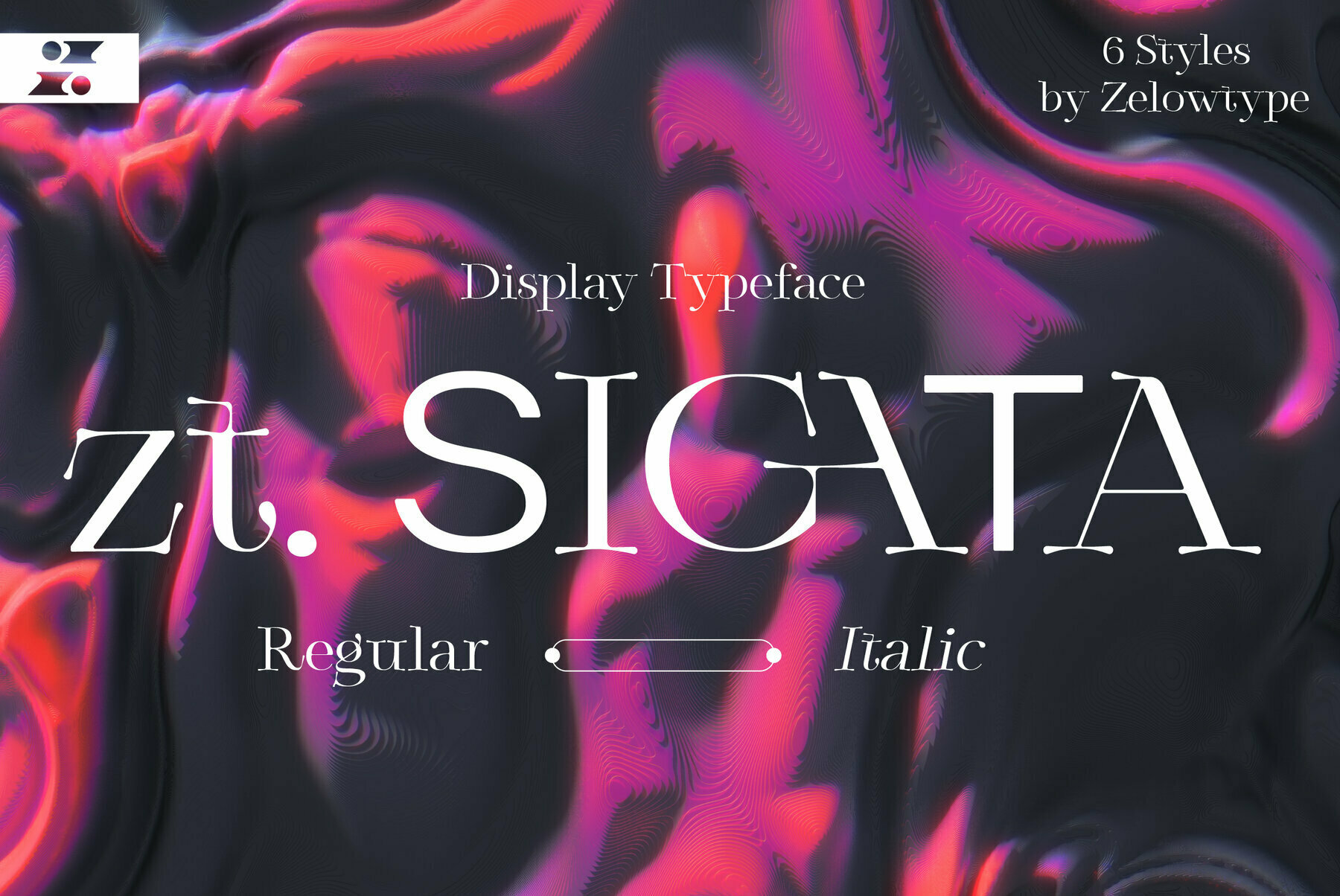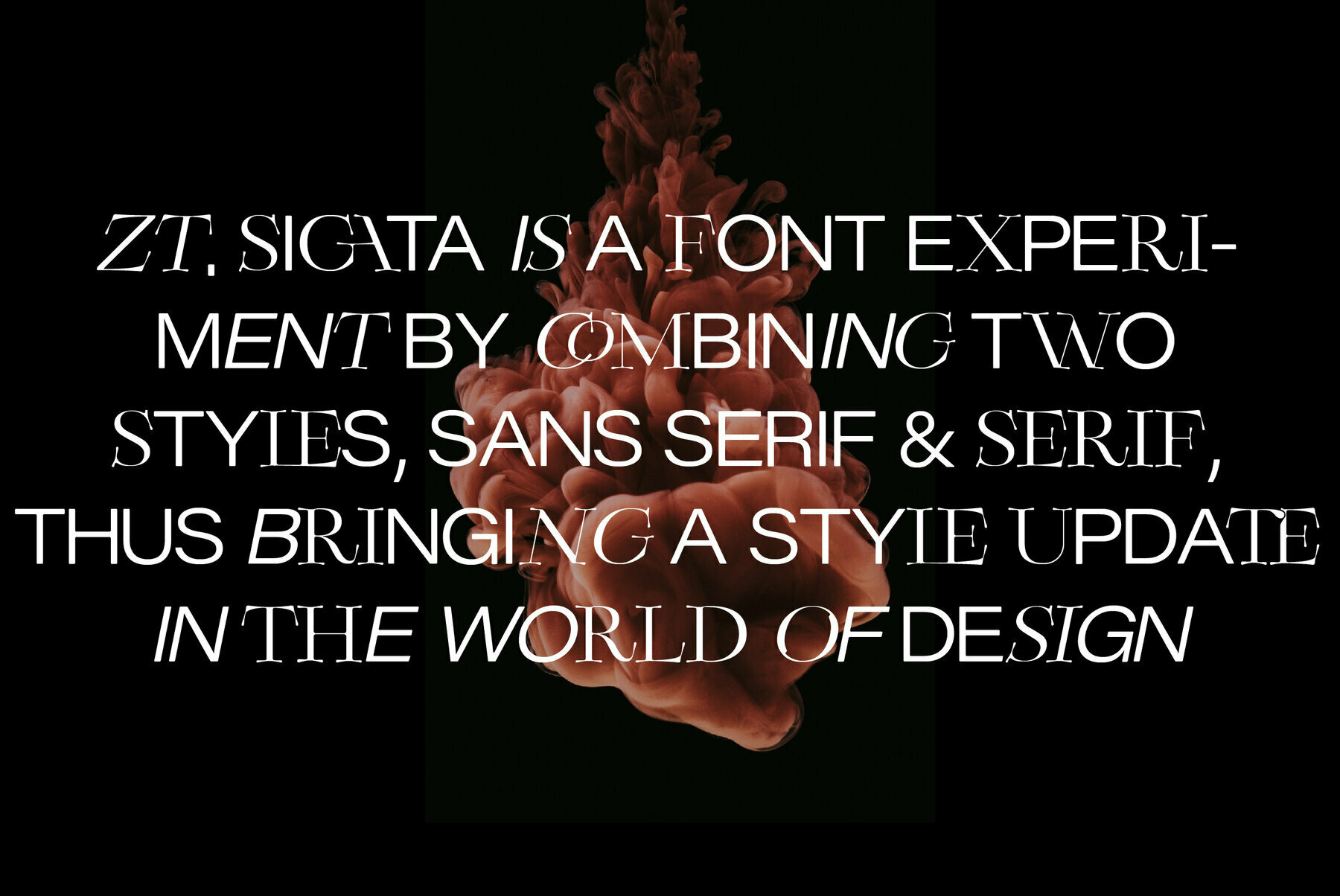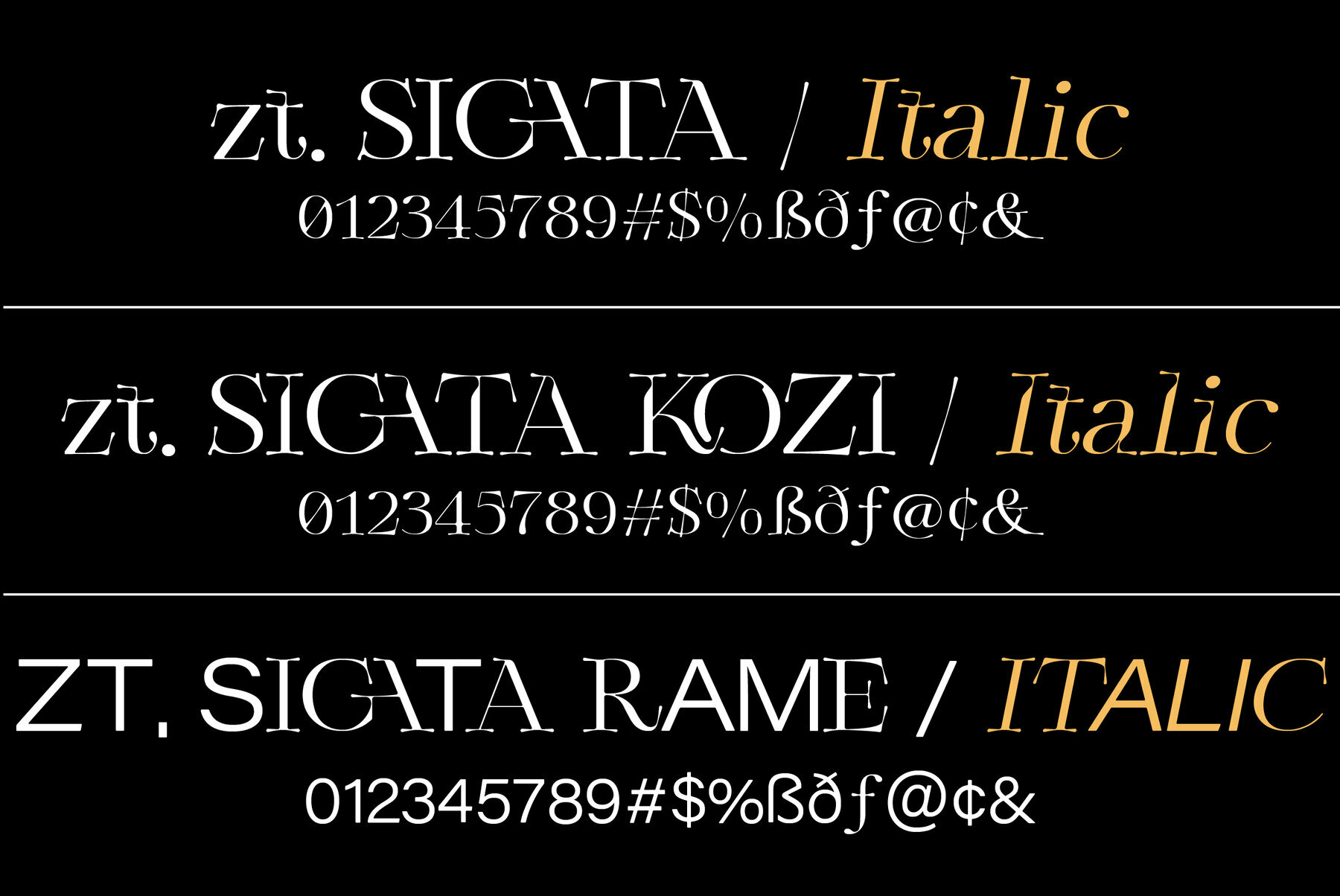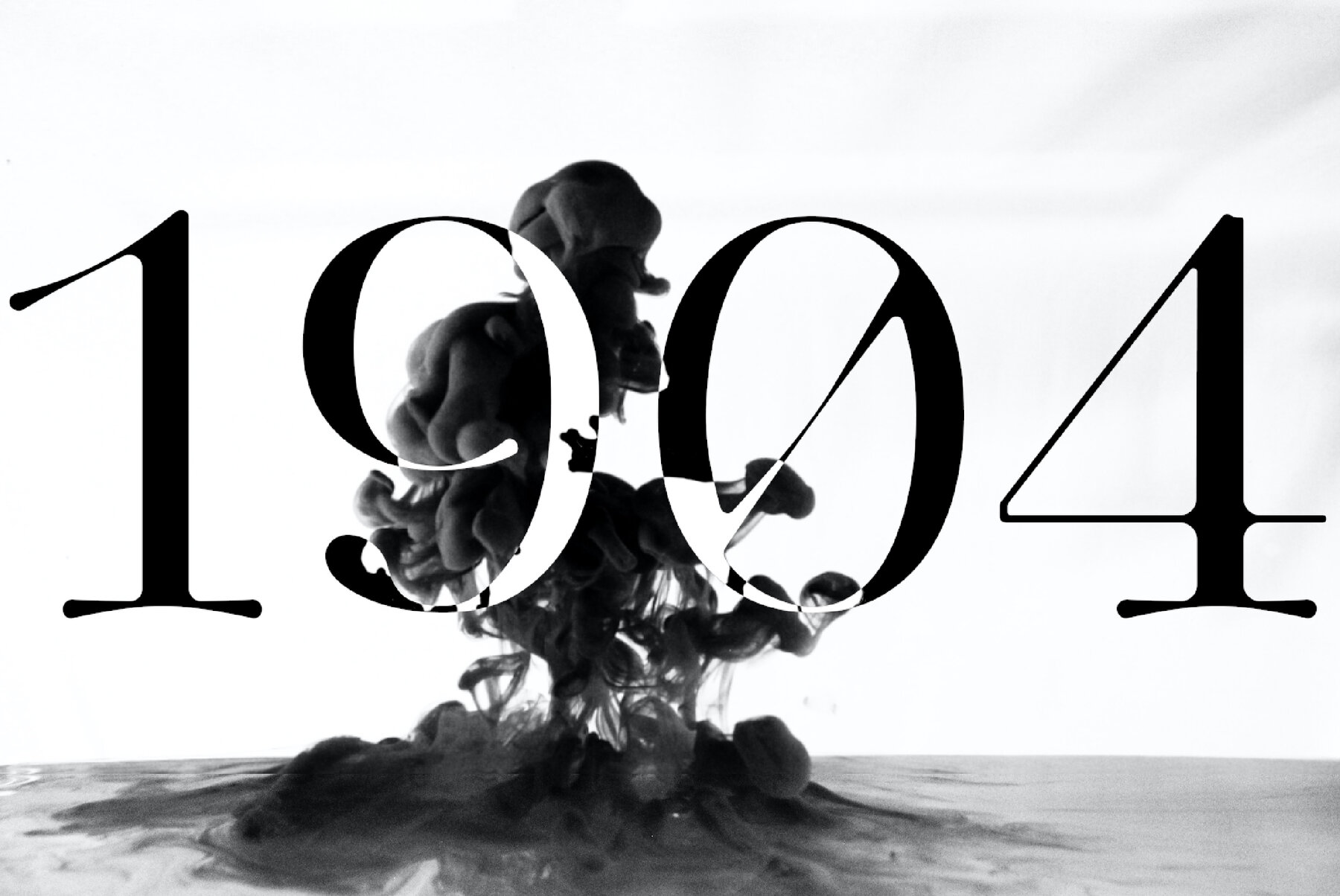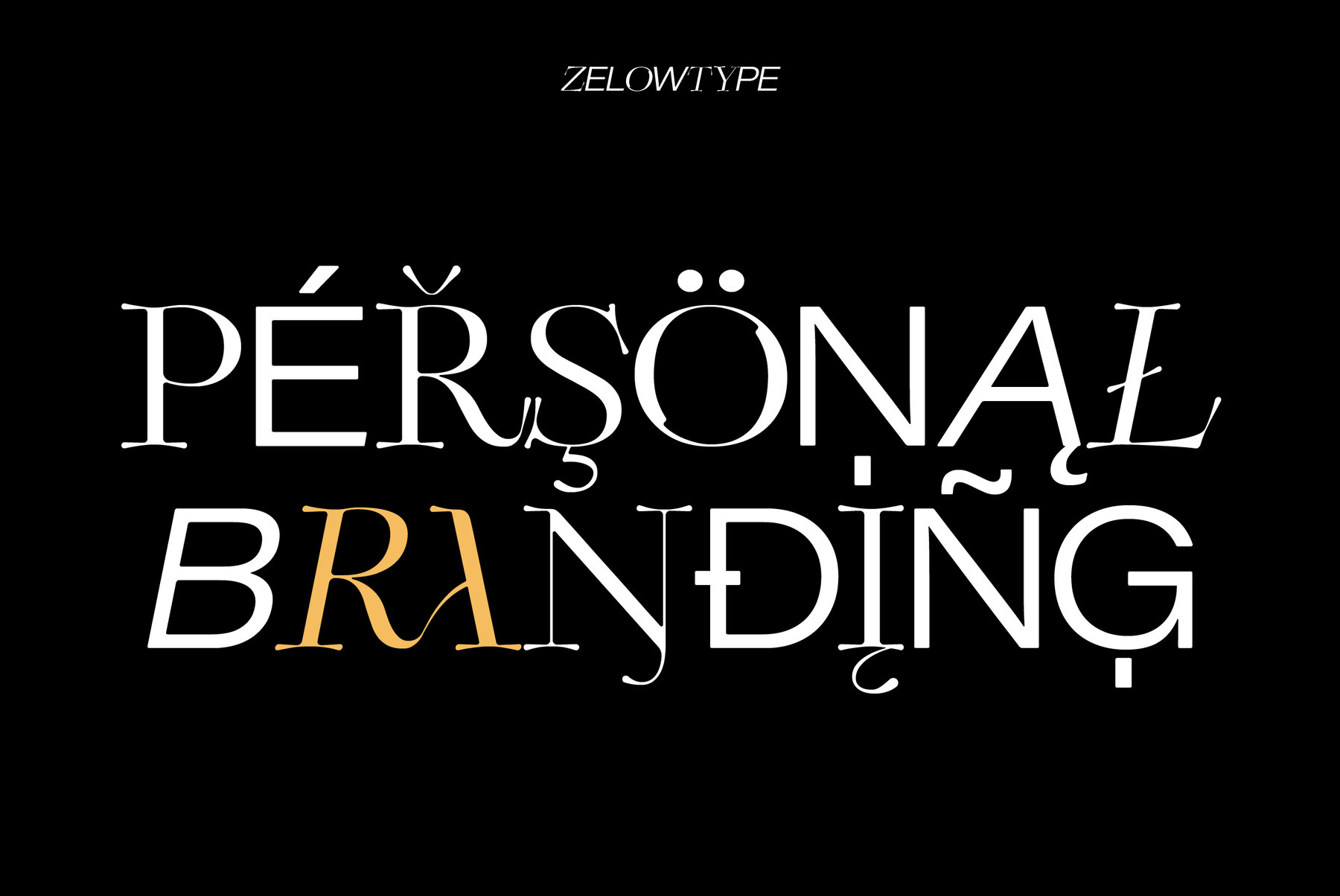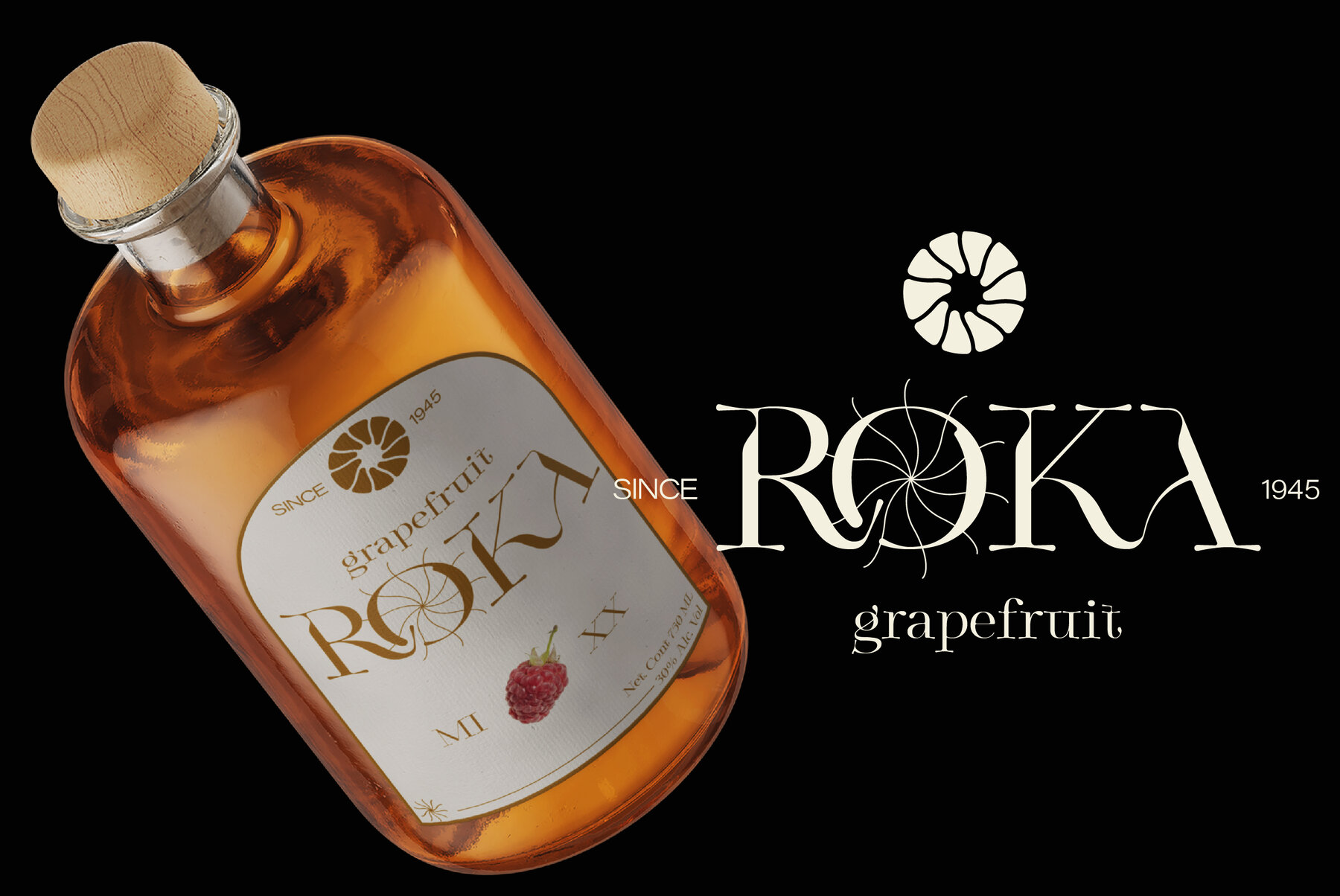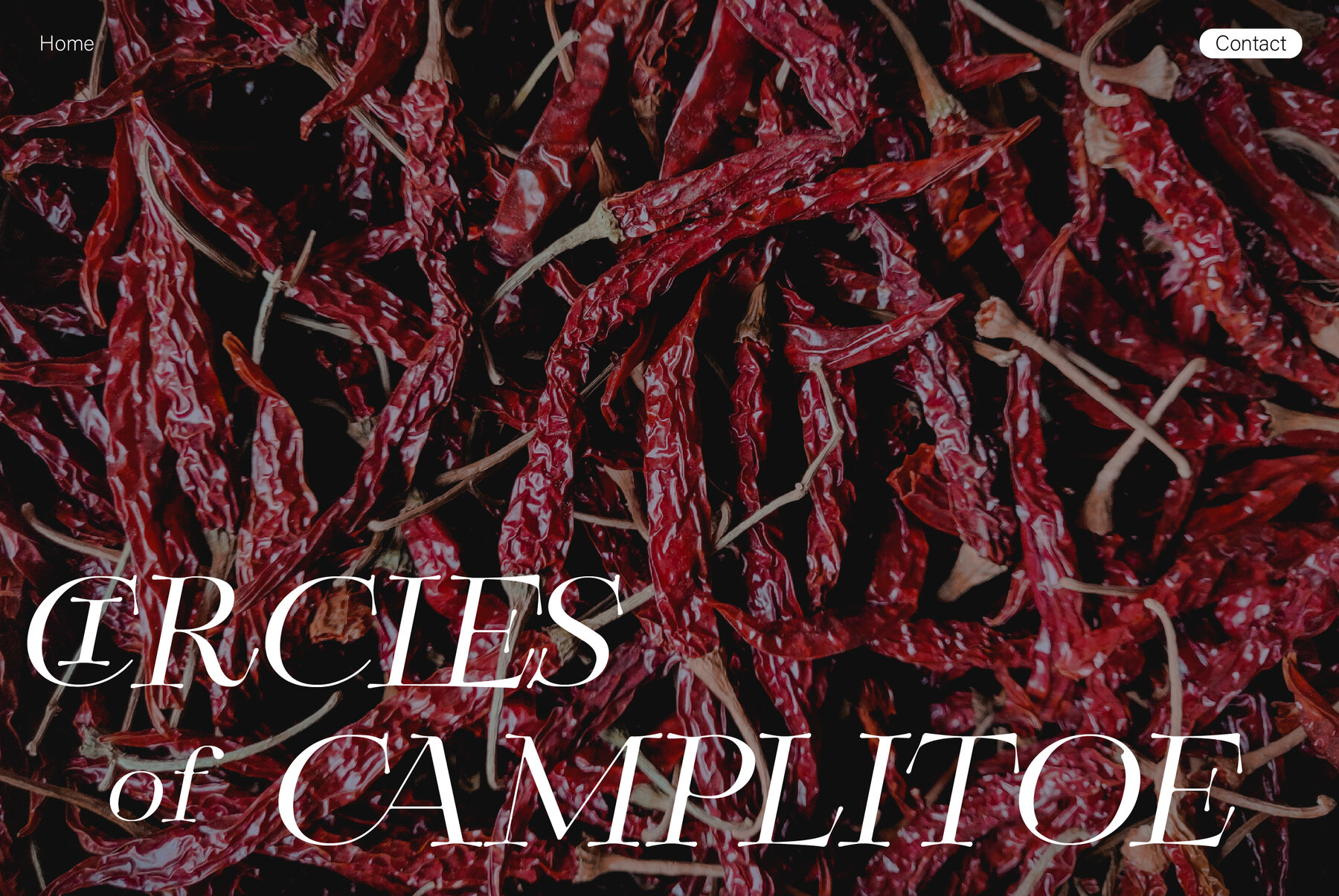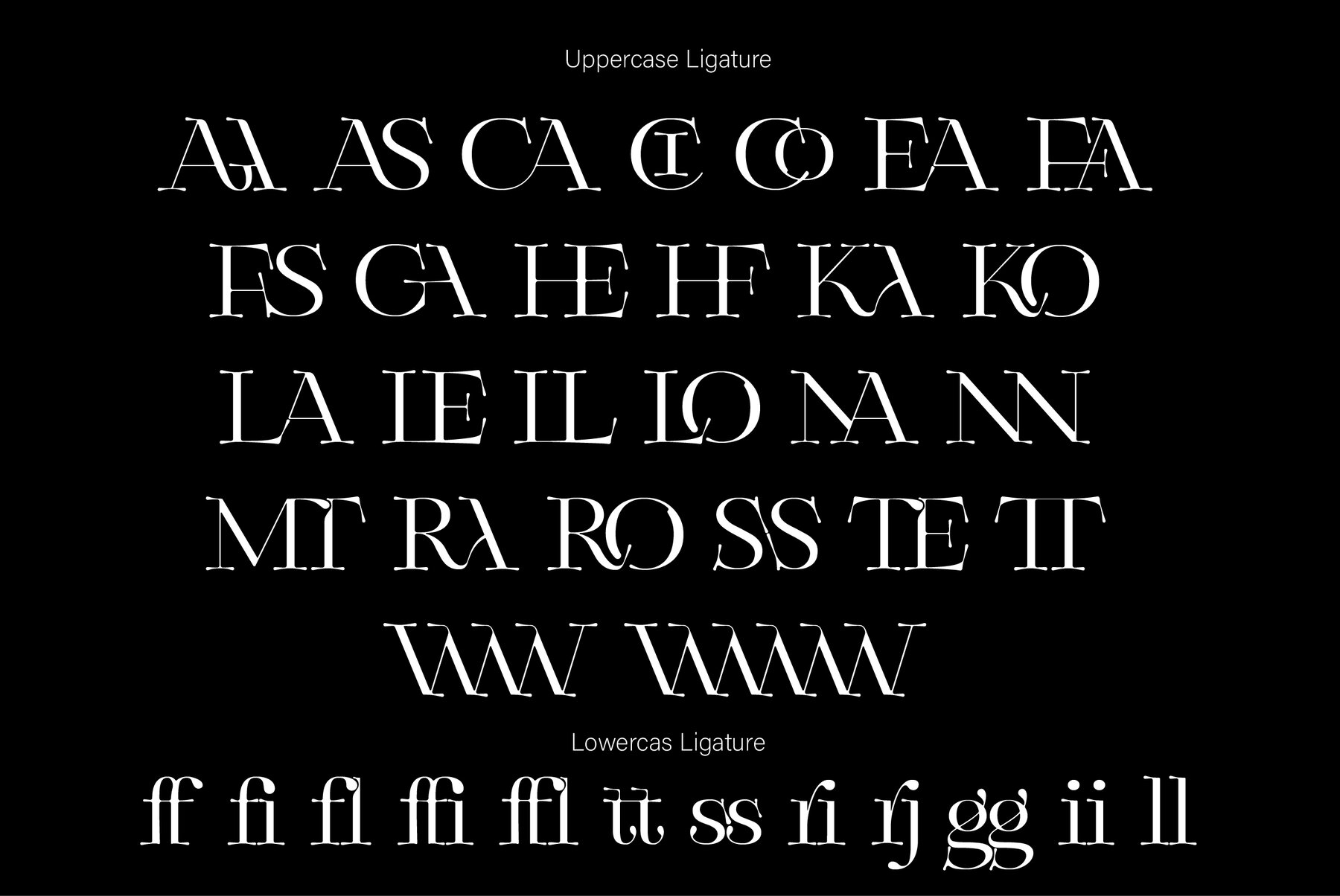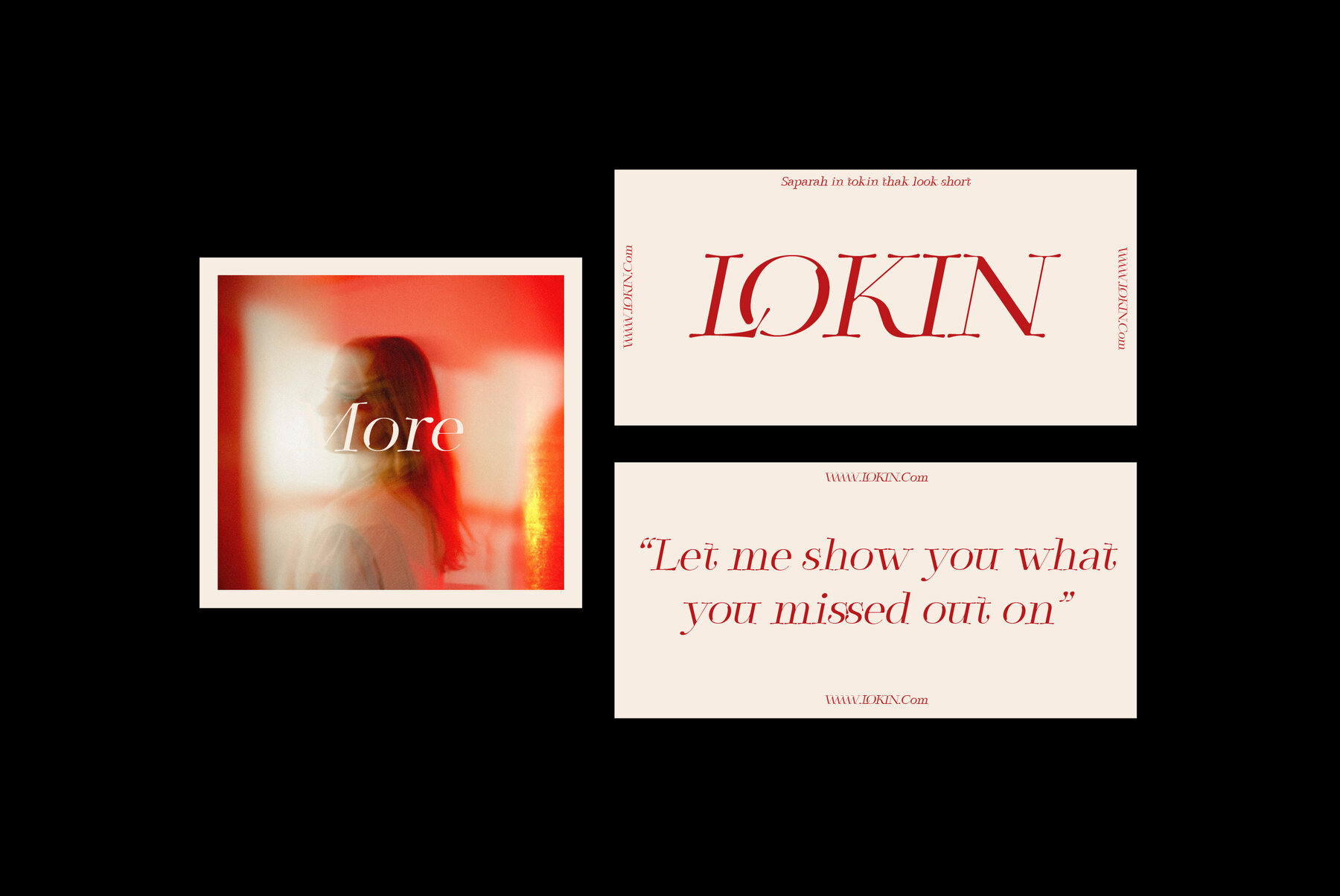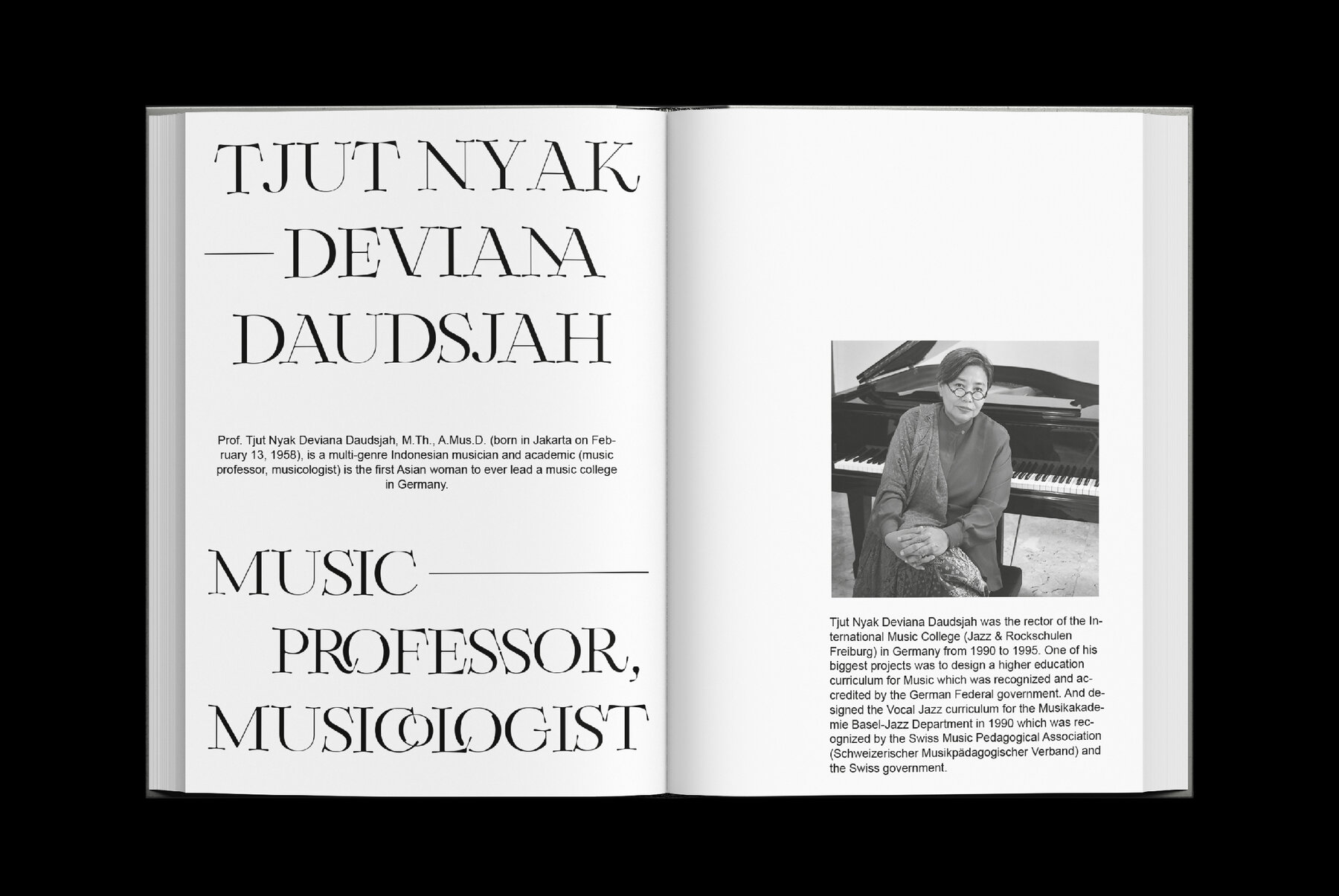
Zt Sigata 1
Zt. Sigata is an experiment where combining the two font styles into one, namely sans serif and serif, maybe this sounds very strange, don't worry this has been designed with very deep consideration with the serif style water droplets in the foliage that present coolness in every word and simple style sans serif with softness on each side, So when combined the two will be an extraordinarily beautiful design invention.
Zt. Sigata comes with 6 styles (Regular/ italic, Kozi / italic, Rame / italic) that from each style have their own uniqueness, so it further expands your design experiment, and is great for poster design, packaging, logos, films and thanks to the uniqueness of each style may look good either in magazines or kompanye branding effectively.